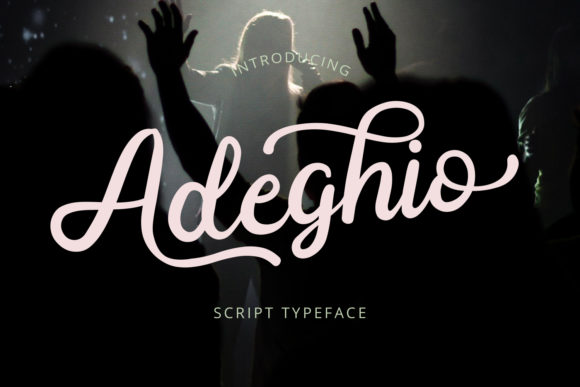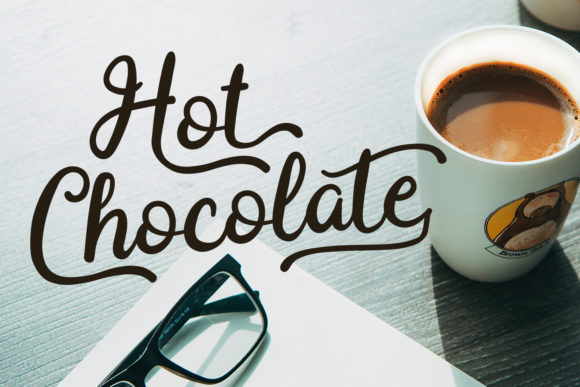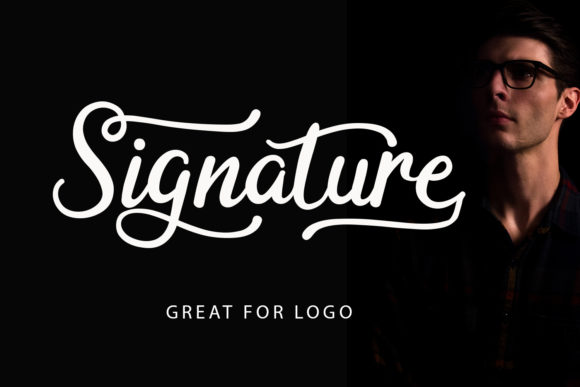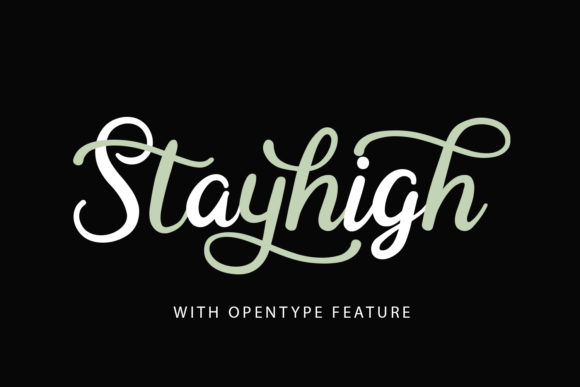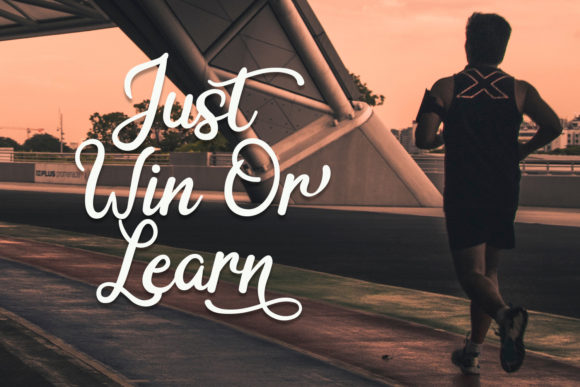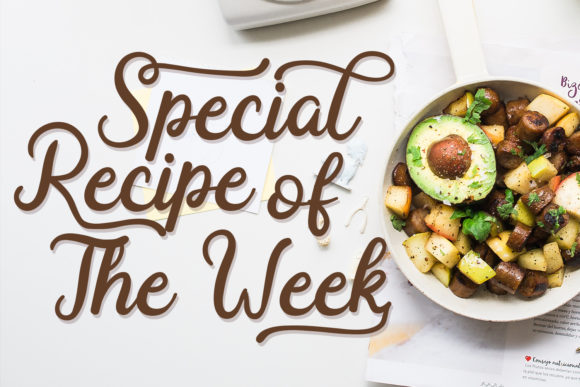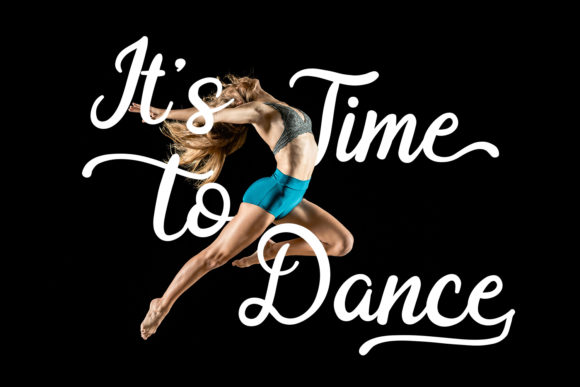
Adeghio Font
About Adeghio Font
Adeghio is a modern and authentic handwritten font with bold swashes. Use it for any creative project that needs a personal charm.